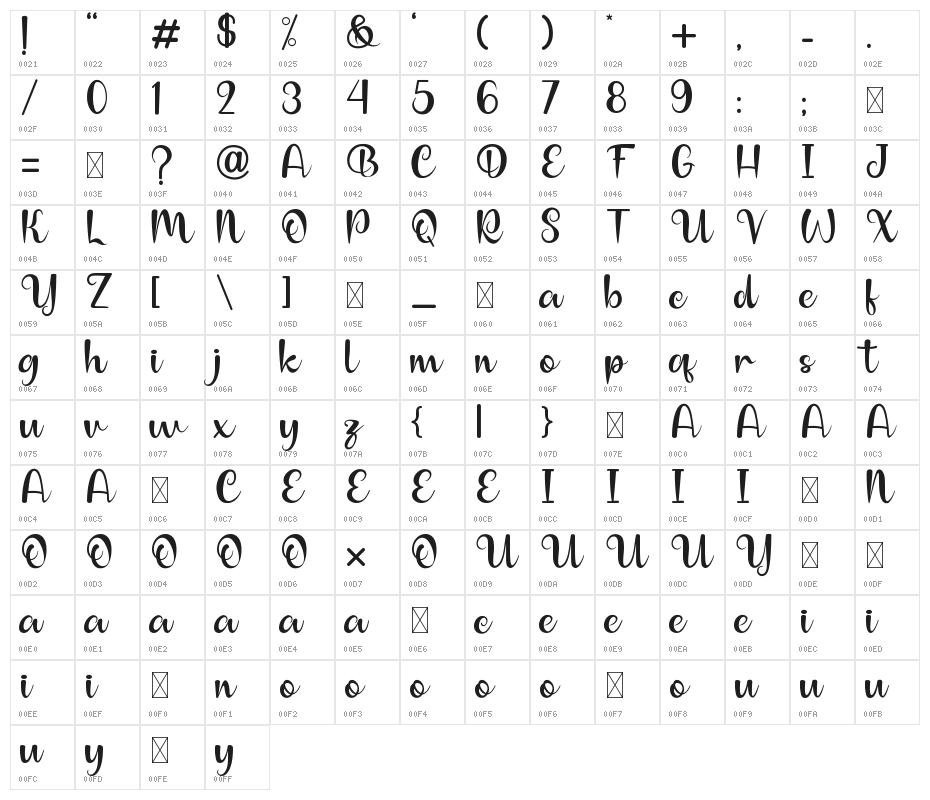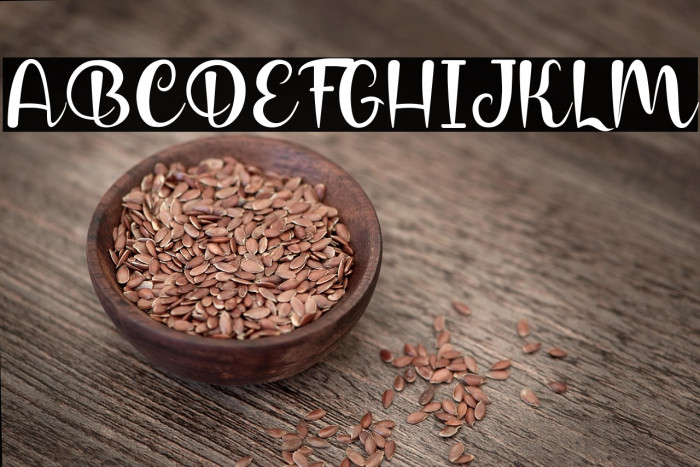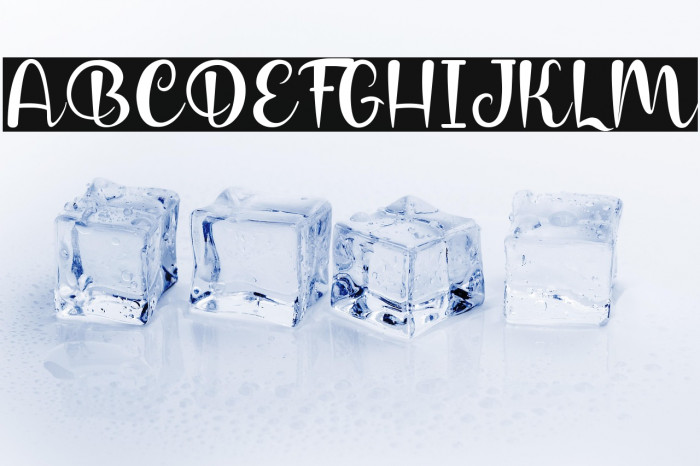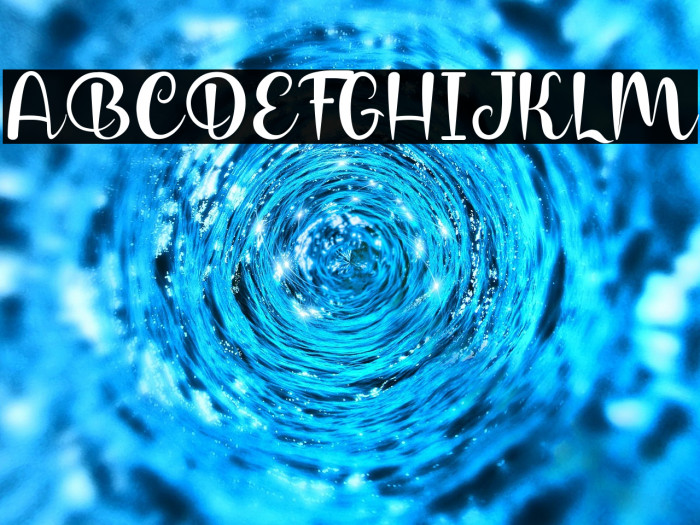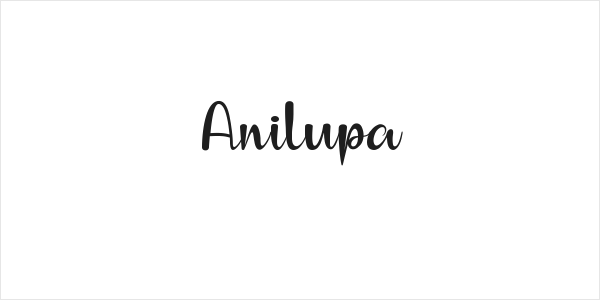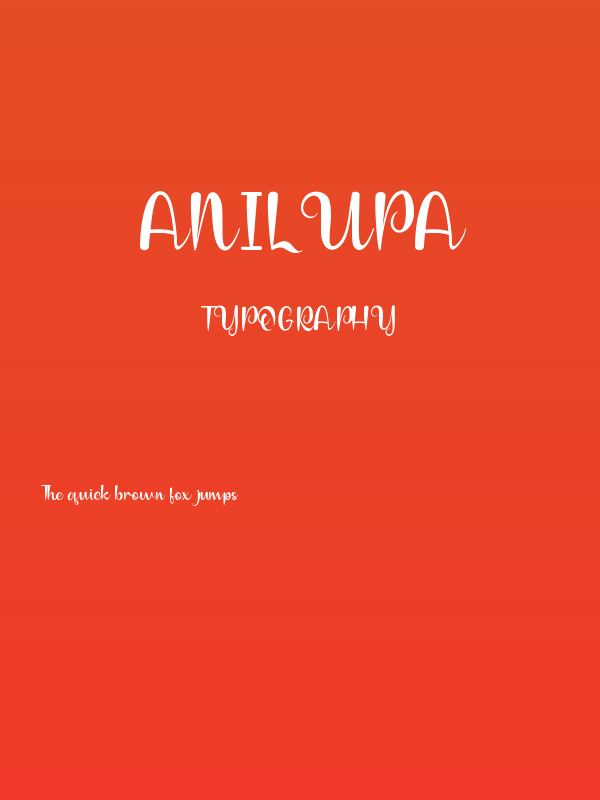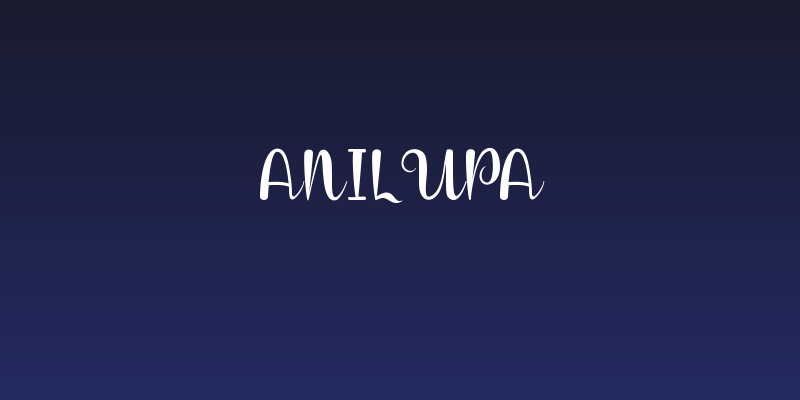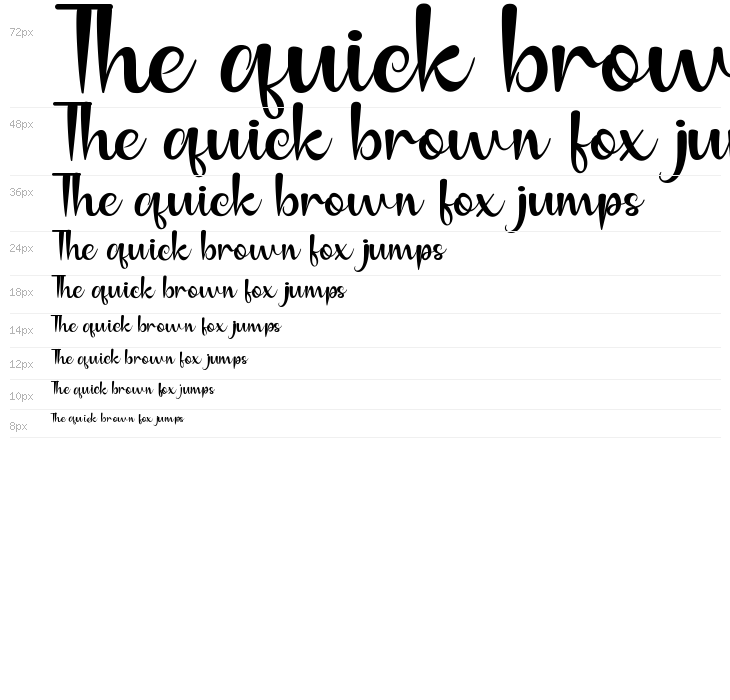
Anilupa Font
Anilupa Description
This font features a playful and whimsical style with a handwritten appearance. The uppercase letters are bold and rounded, with a slight slant that adds a dynamic feel. The lowercase letters maintain a consistent flow, with some characters featuring loops and curls that enhance the font's decorative nature. The numerals are bold and clear, with a similar rounded style that ensures readability. Special characters are creatively designed, maintaining the overall playful aesthetic. This font is ideal for projects that require a fun and engaging look, such as children's books, greeting cards, or playful branding.
Use CaseHeadlines, Logos, Invitations
Proposed ProjectsIdeal for children's books, greeting cards, playful branding, and creative invitations.